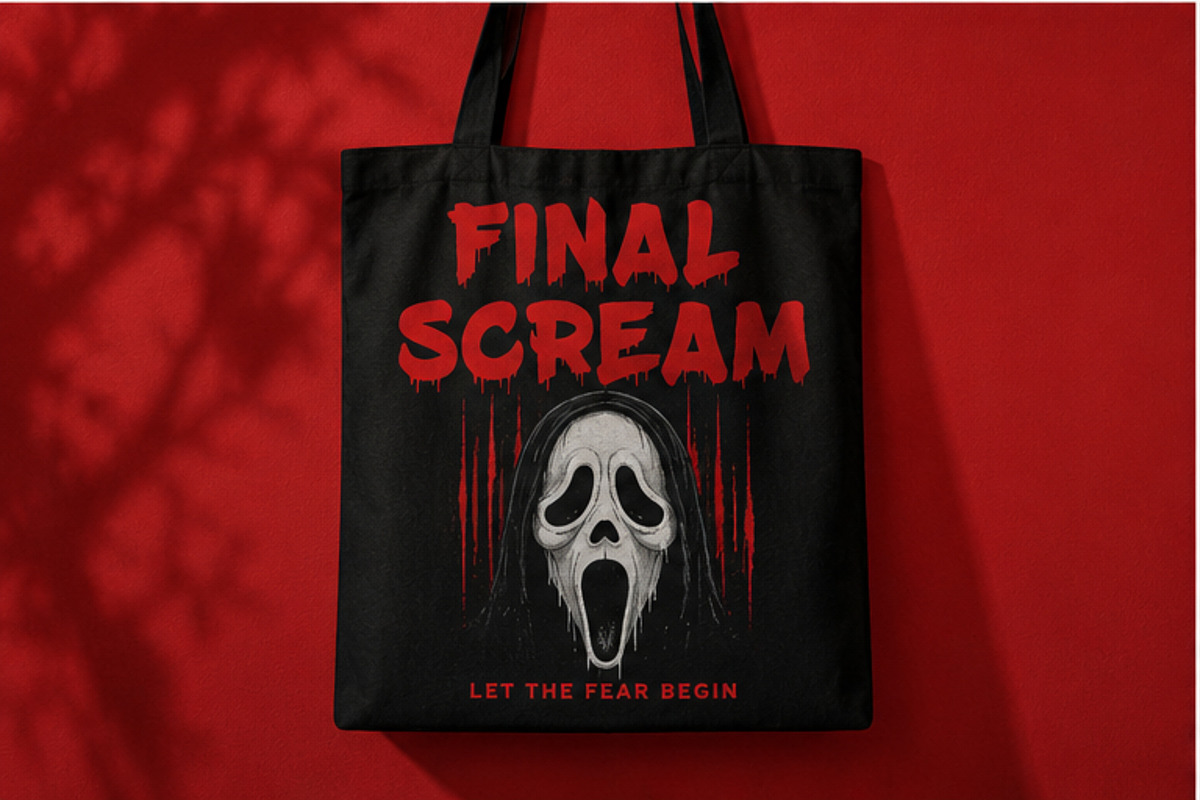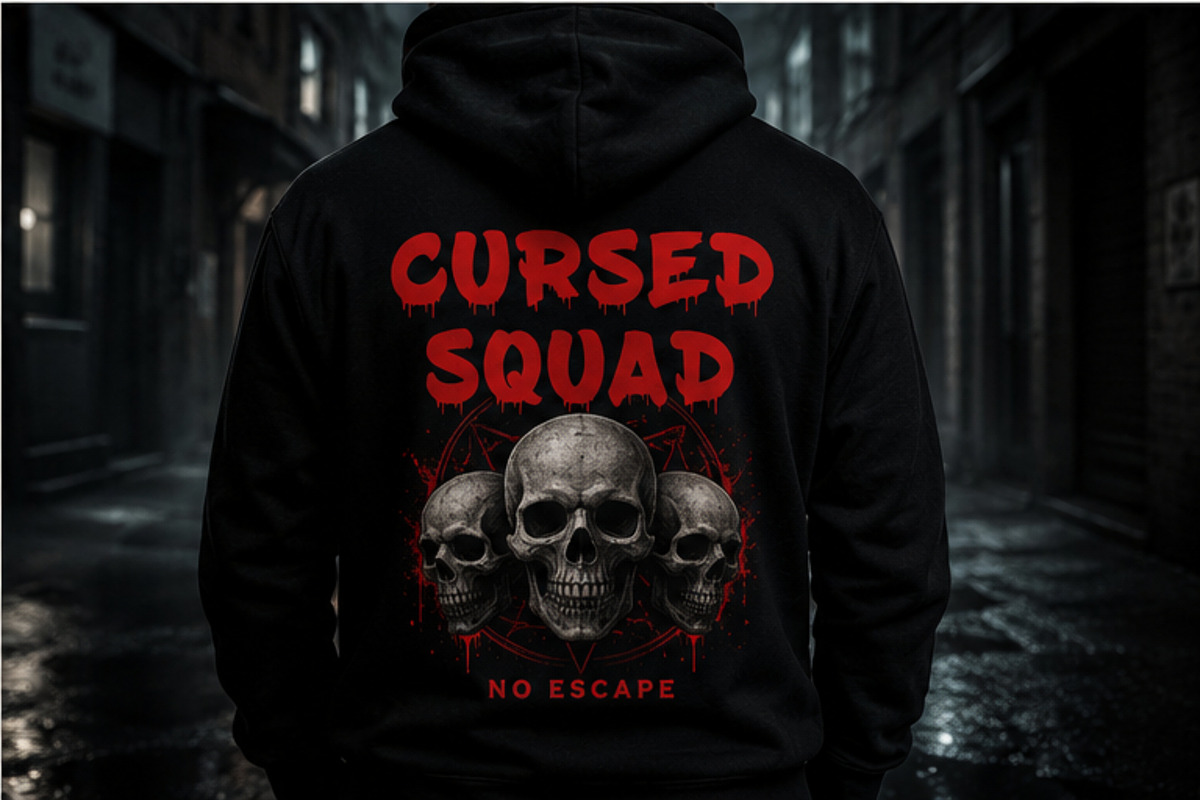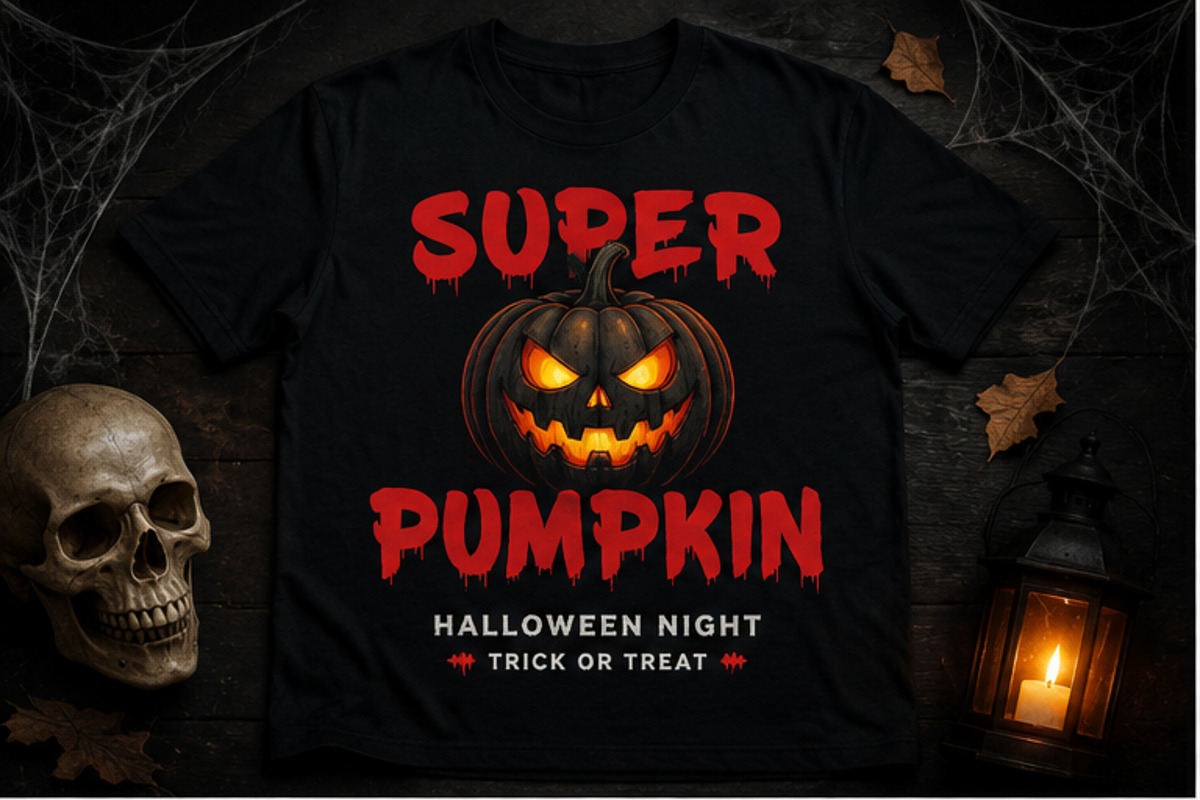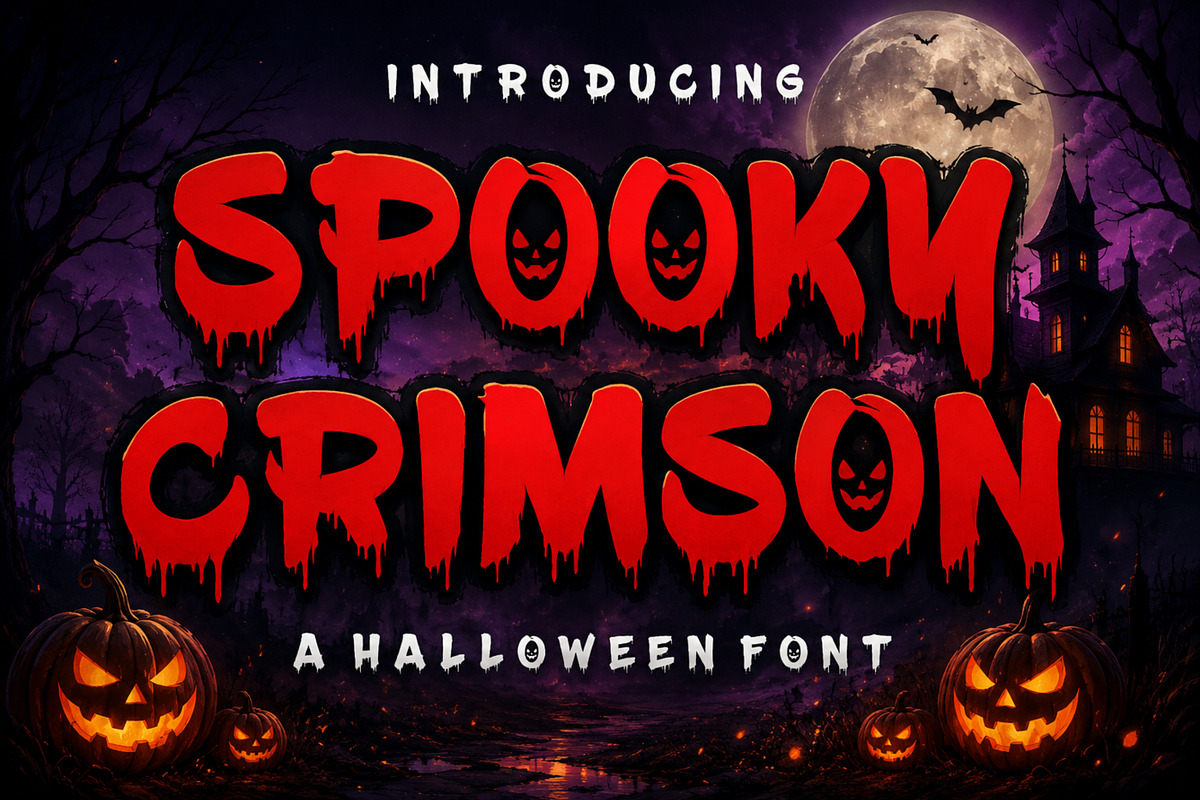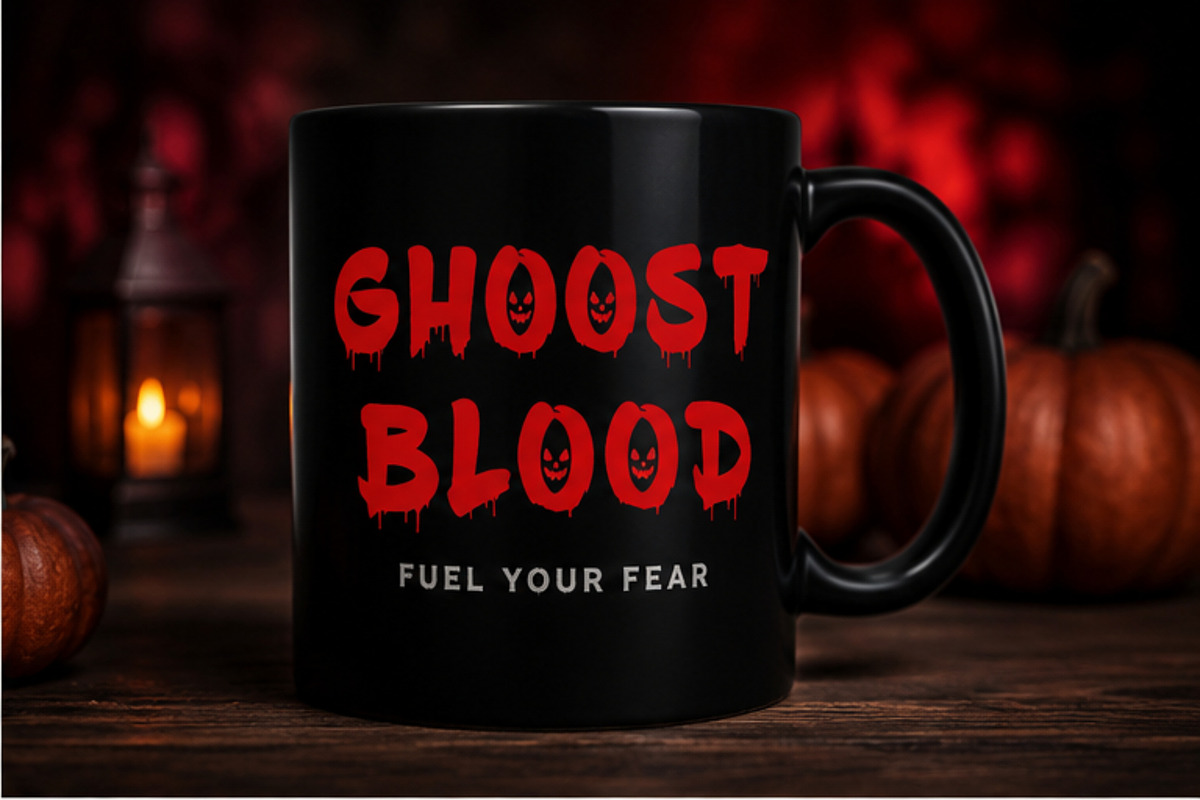
Spooky Crimson - Horror Halloween
Bring a terrifying atmosphere to your next creative project with Spooky Crimson, a bold Halloween display typeface inspired by horror movies, haunted nights, dripping blood, creepy pumpkins, and classic Halloween aesthetics.
Its heavy, playful-yet-scary letterforms are designed to make headlines stand out while adding an instantly recognizable horror mood.
Perfect for Halloween merchandise, T-shirts, posters, social media graphics, event promotions, stickers, packaging, logos, sublimation designs, Cricut projects, and more.
Bold Halloween display style
Dripping blood-inspired details
Creepy pumpkin-face character details
Strong and highly visible letterforms
Perfect for horror and Halloween projects
Great for both print and digital applications